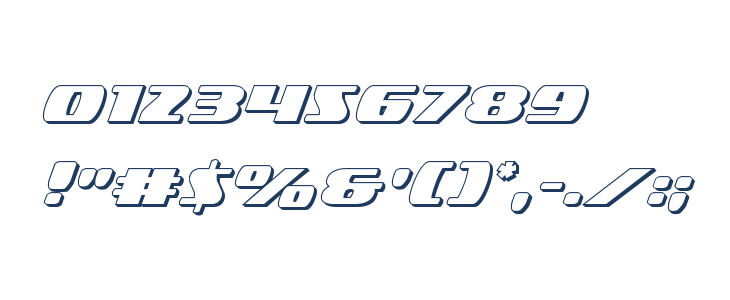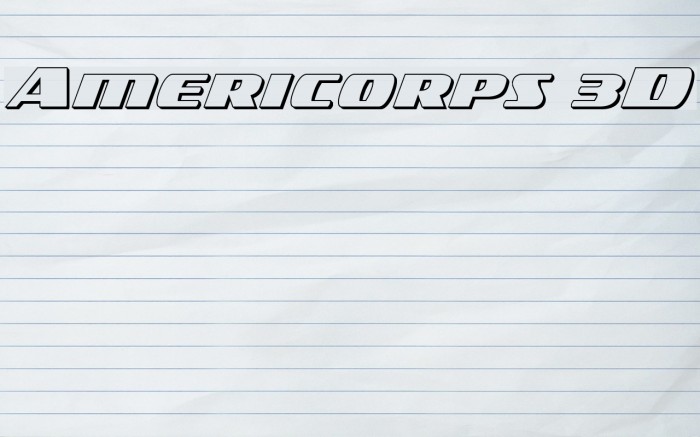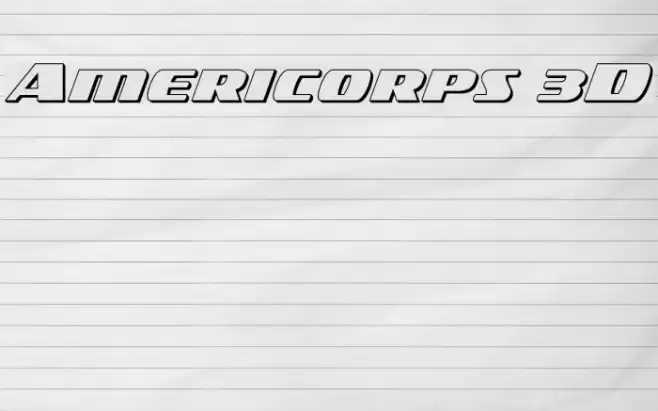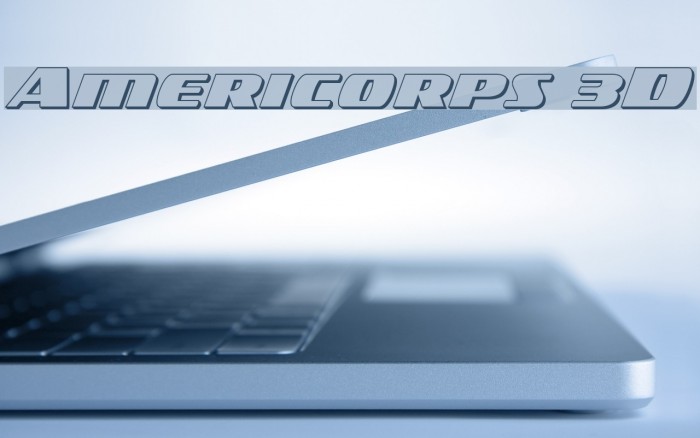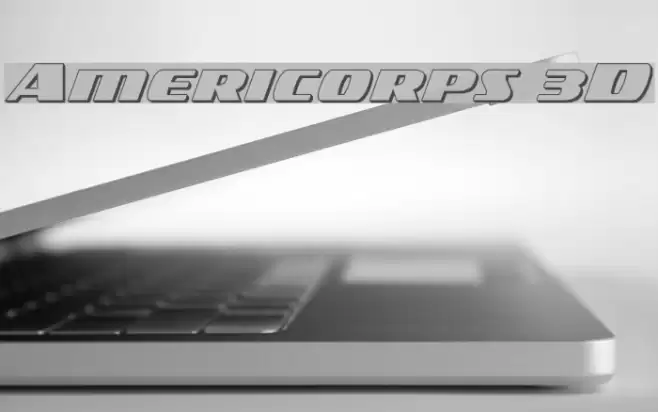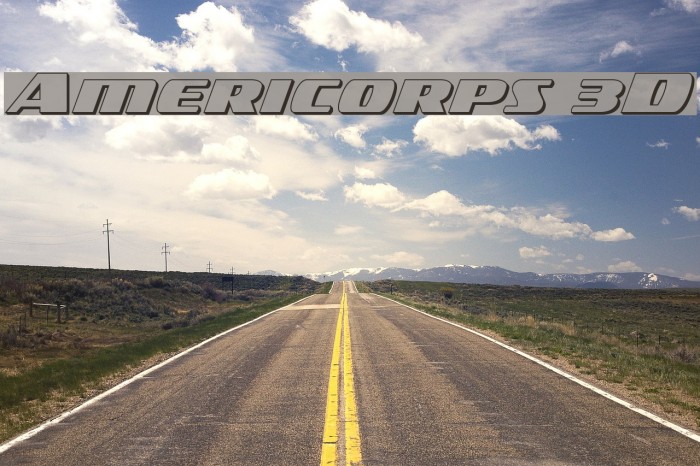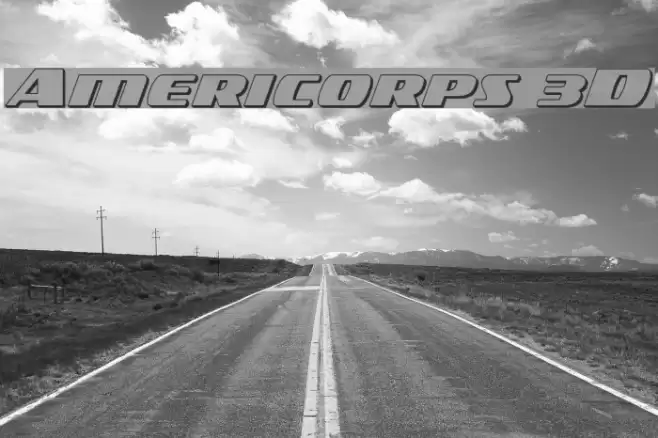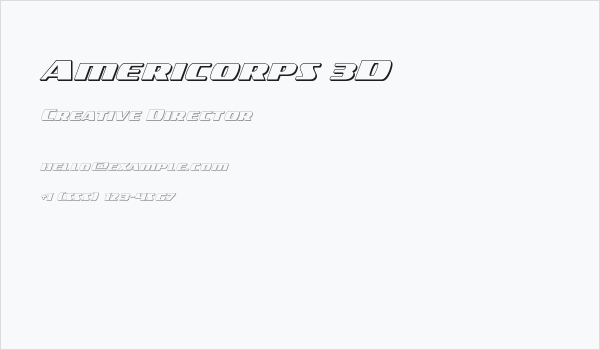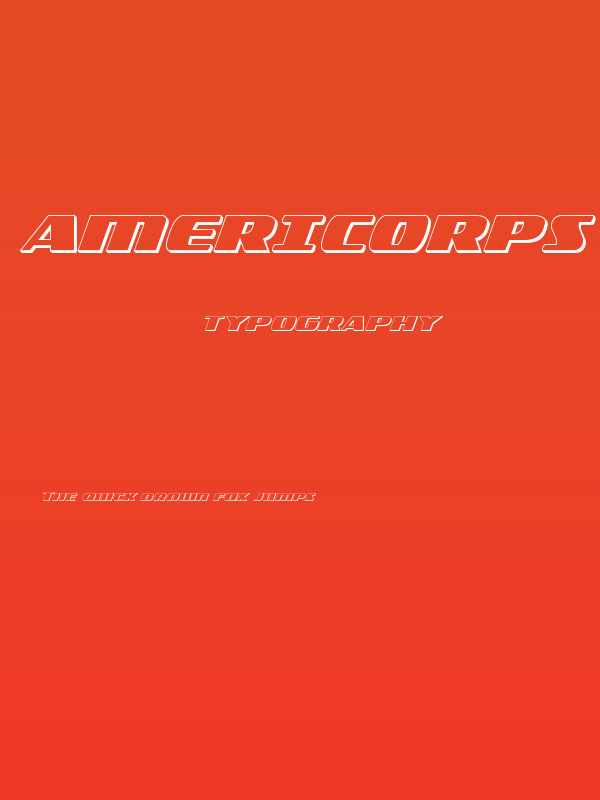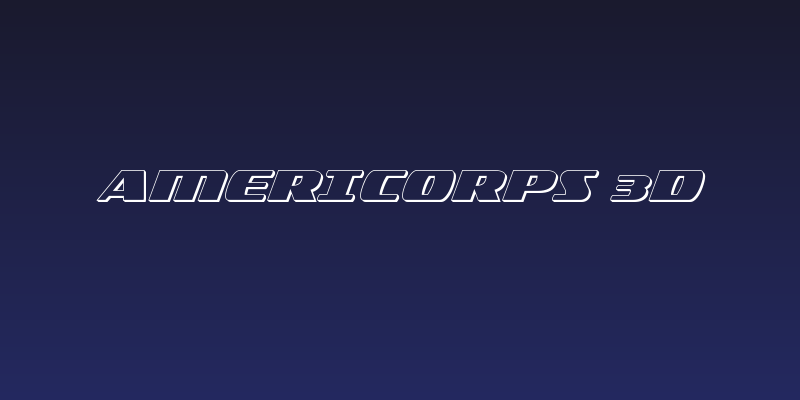
Americorps 3D Font
Americorps 3D Description
This font features a bold, three-dimensional style with a strong, impactful presence. The letters are outlined, creating a shadow effect that gives them a sense of depth and dynamism. The geometric shapes and clean lines contribute to a modern and futuristic aesthetic. The uppercase letters are uniform in height, while the numbers and special characters maintain the same bold, outlined style. This font is ideal for projects that require a striking visual impact, such as headlines, posters, or branding materials.
| Proposed Projects | Ideal for headlines, posters, branding, and any design needing a bold, impactful look. |